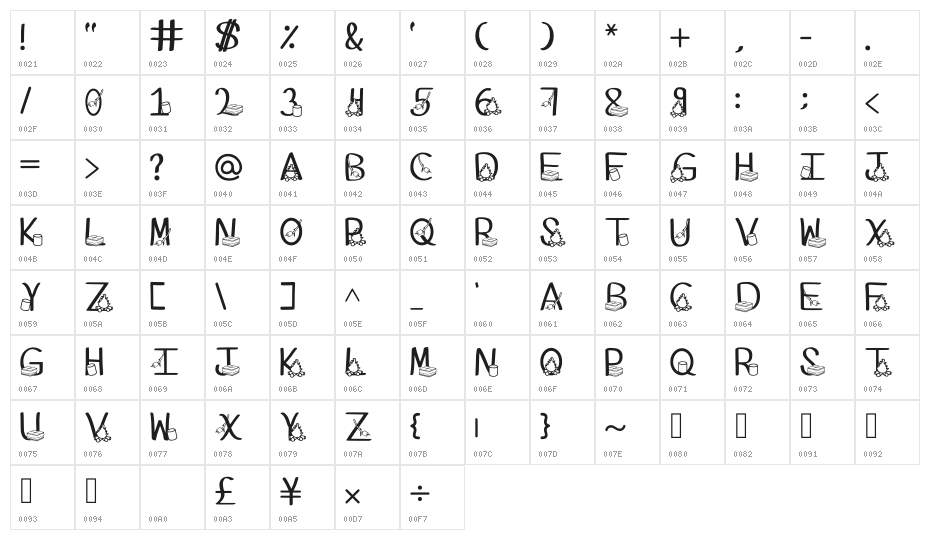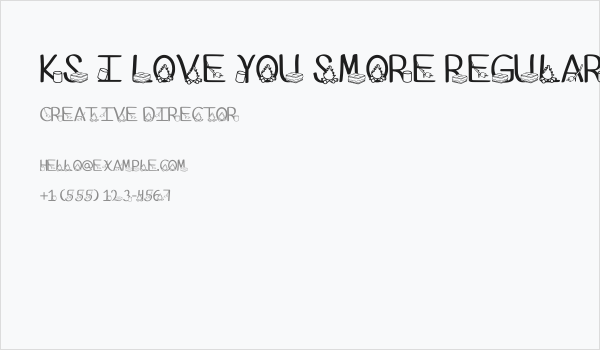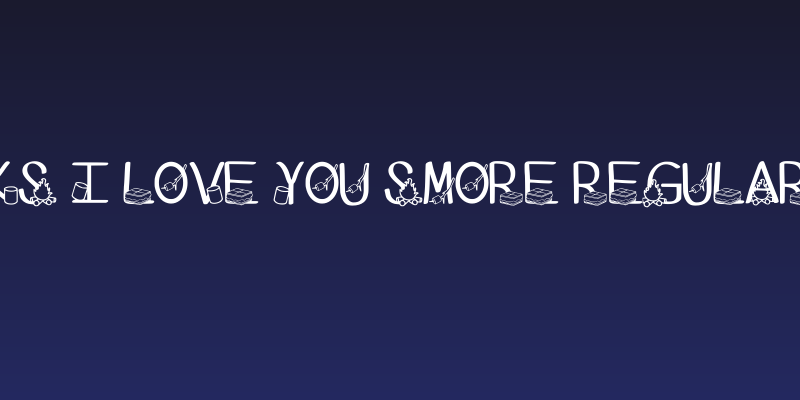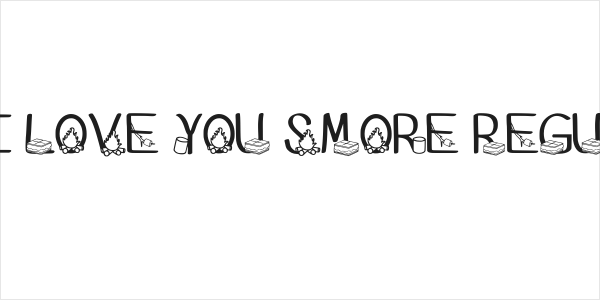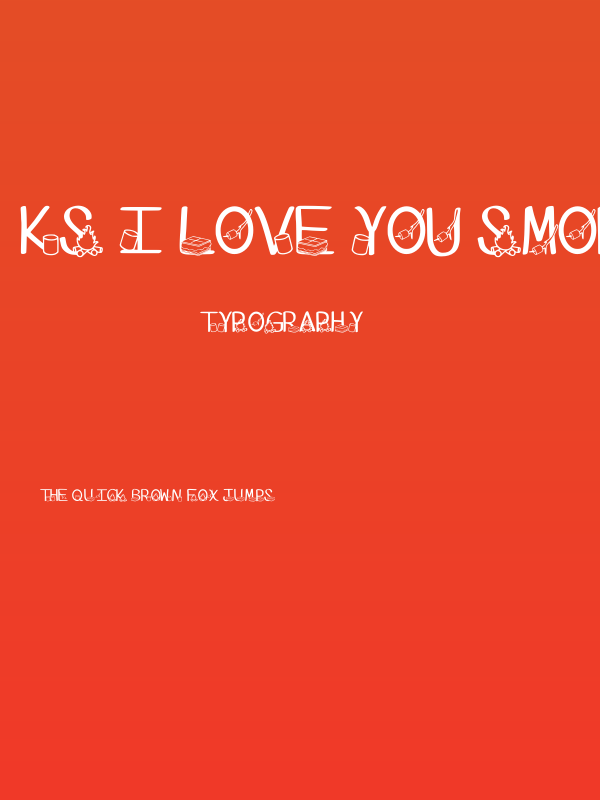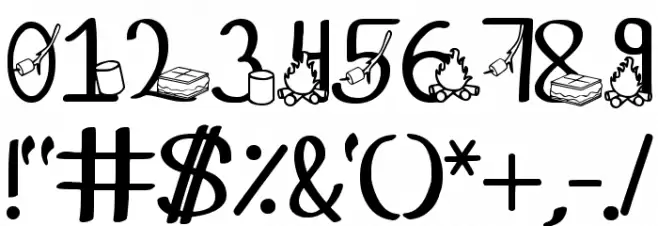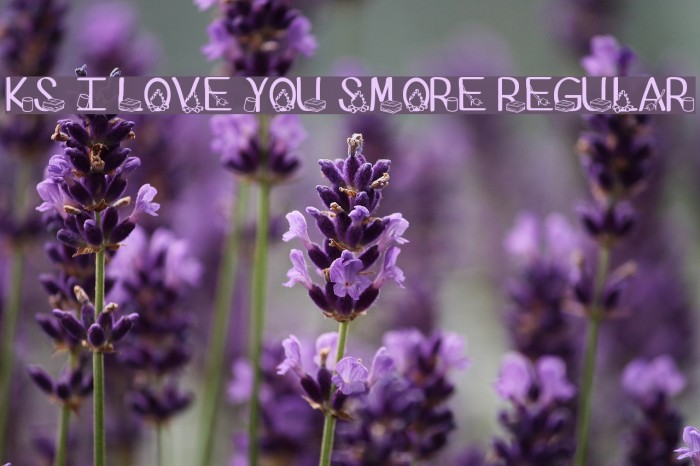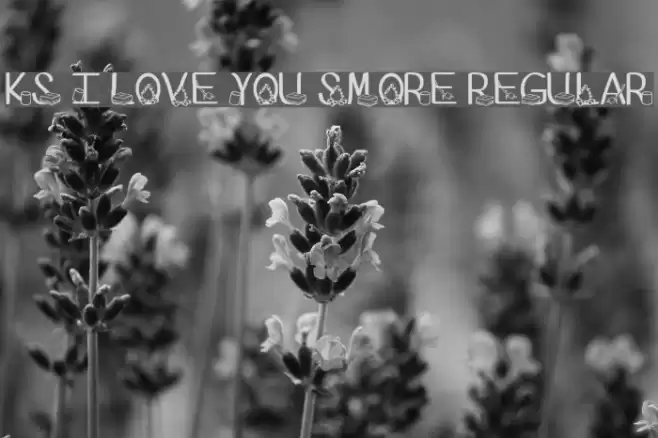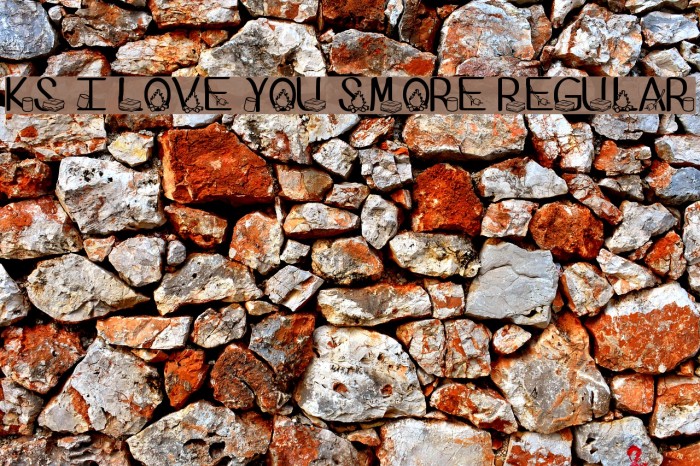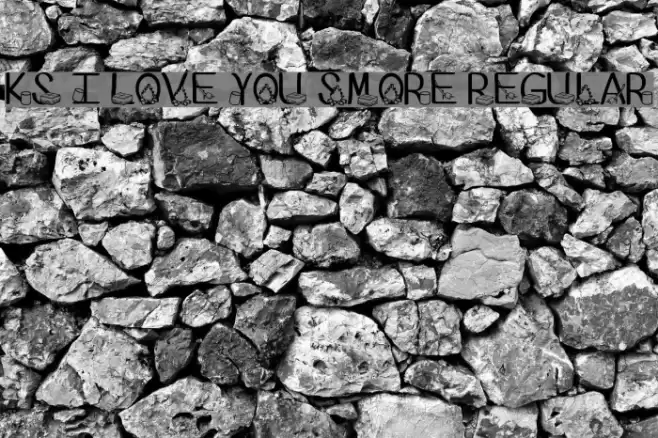
Ks I Love You Smore Regular Font
Ks I Love You Smore Regular Description
This playful and decorative font features a camping theme, with each letter incorporating elements like campfires, marshmallows, and s'mores. The characters are bold and whimsical, making them stand out with their unique design. The font combines a sense of adventure and fun, perfect for projects that aim to capture the spirit of the outdoors. The integration of camping motifs within the letters adds a layer of creativity and thematic relevance, making it ideal for specific niche uses.
| Use Case | Headlines, Logos, Themed Invitations |
| Proposed Projects | Ideal for children's books, camping event posters, themed party invitations, and outdoor adventure branding. |